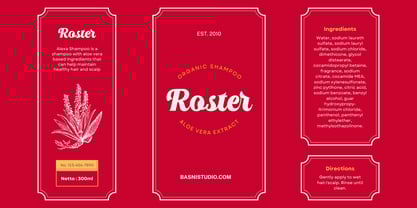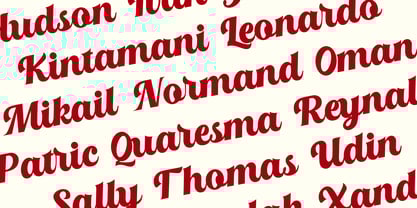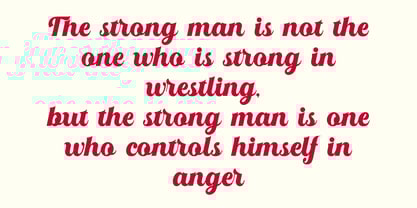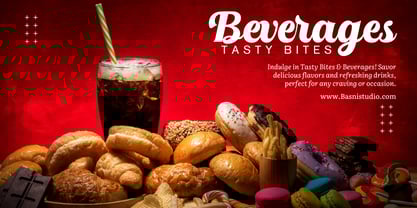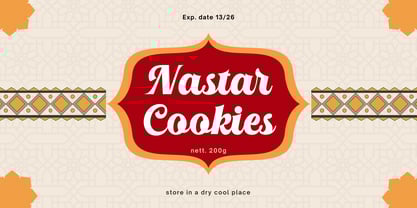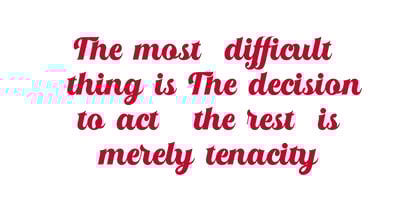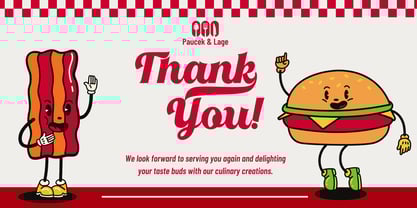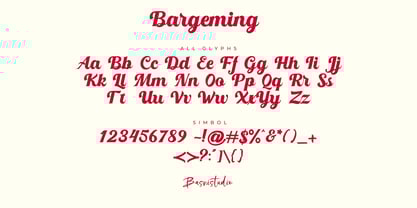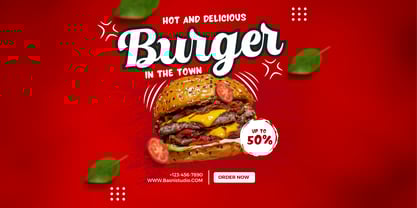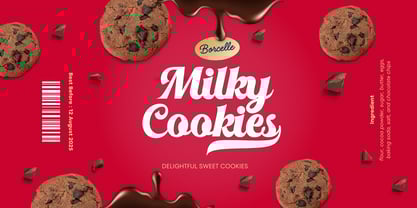
Arakans
by Basnistudio
The Arakans Font Family was designed by Bery Arisandi and published by Basnistudio. Arakans contains 1 styles. More about this family
Unleash Bold Strength with Modern Calligraphy 🎨✨
Transform your brand’s identity with the perfect blend of artistry and attitude. Introducing Arakans, a Bold Calligraphy font designed for brands that demand attention.
✅ Authentic Bold Modern Calligraphy Style – Every stroke exudes personality and fluid motion.
✅ Bold & Expressive – Perfect for logos, branding, packaging, and social media.
✅ Clean Brush Texture – A raw, organic feel that adds character and uniqueness.
Make your mark with a Bold calligraphy font that speaks with confidence. Create. Inspire. Stand out.
What’s Included:
• Uppercase & lowercase letters
• Ligature & Swashes
• Numbers & punctuation
• Multilingual Support ( Support for 90 languages )
Designers: Bery Arisandi
Foundry: Basnistudio